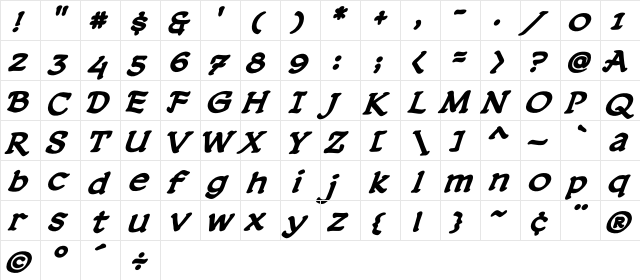
CCDreamlandLower Regular Font Preview
CCDreamlandLower Regular
CCDreamlandLower Regular Font Details
Design Context for CCDreamlandLower Typeface
CCDreamlandLower takes a measured approach to typography — its balanced proportions and neutral character make it a reliable workhorse for both digital and print work.